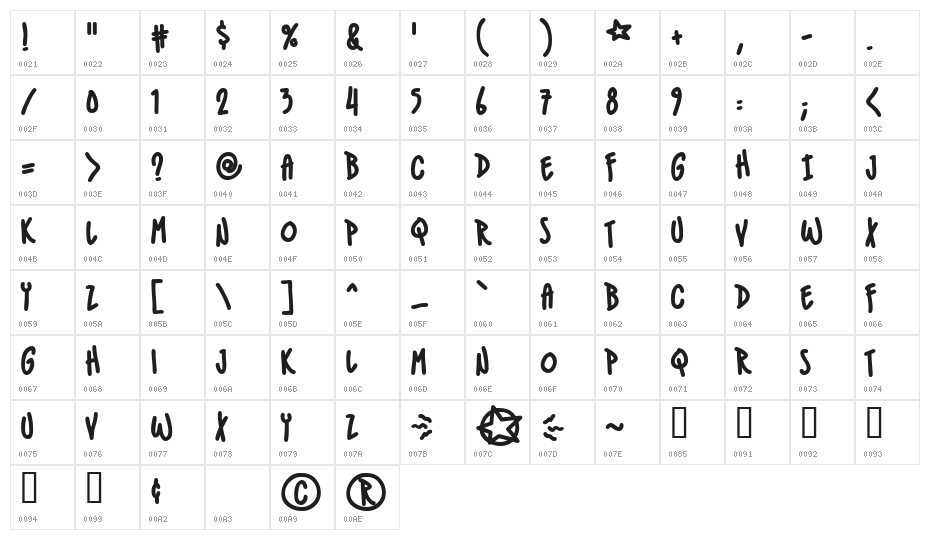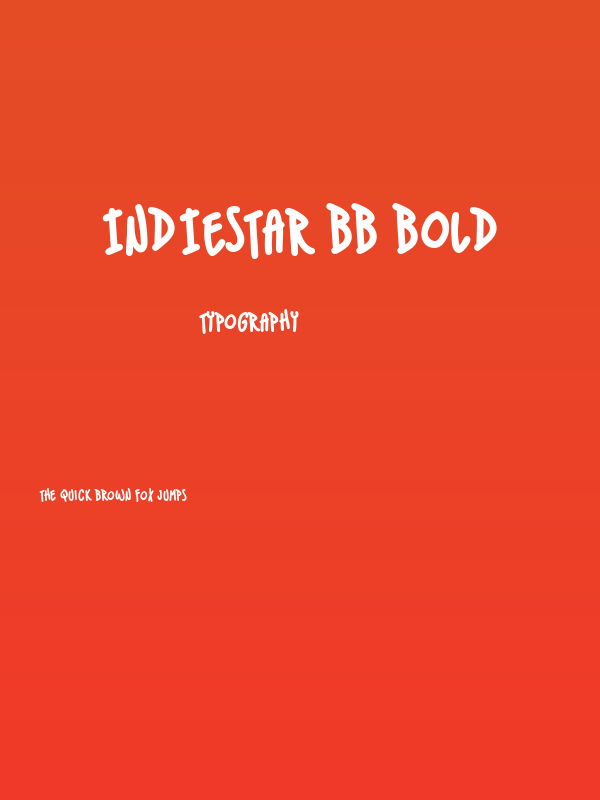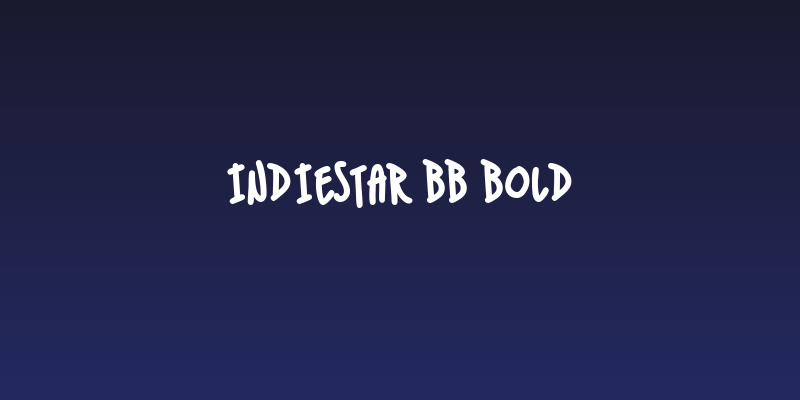
IndieStar BB Bold Font
IndieStar BB Bold Description
This font features a bold, playful style with a handwritten appearance. The characters are rounded and slightly irregular, giving a casual and friendly vibe. The uppercase and lowercase letters maintain a consistent weight, contributing to its boldness. Numbers and special characters are designed to match the playful aesthetic, making it suitable for creative and informal projects. The font's thick strokes and rounded edges enhance its legibility, even at smaller sizes.
| Proposed Projects | Ideal for children's books, comic strips, playful branding, and informal invitations. |